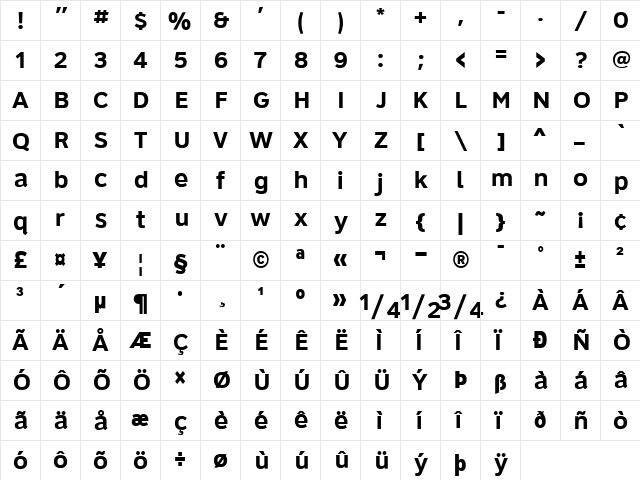
Roadgeek 2005 Series 6B Regular
| Foundry | Michael D. Adams |
| Designer | Michael D. Adams |
Design Context for Roadgeek 2005 Series 6B Typeface
Roadgeek 2005 Series 6B offers clean, dependable letterforms without strong stylistic allegiance, making it a practical choice for designers who need flexibility.